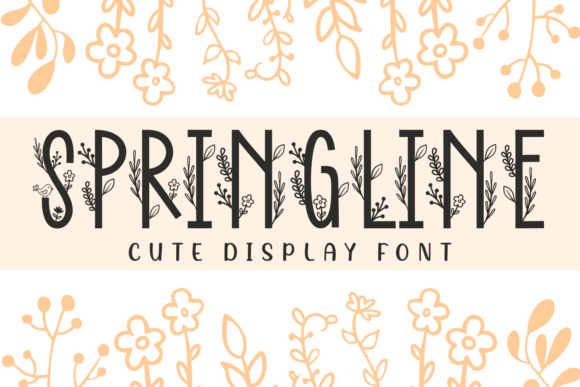
Dive into the enchanting realm of Springline Font, a captivating display font that exudes charm and playfulness. This exquisite creation by Dreamink (7ntypes) is a true masterpiece, meticulously crafted to ignite your imagination and elevate your designs. With its delicate flowers adorning each letter, Springline Font invites you on a whimsical journey, transforming your words into vibrant works of art.
Embrace the allure of Springline Font and let its inherent beauty captivate your audience. Its graceful curves and elegant flourishes evoke a sense of nostalgia, while its contemporary twist adds a touch of modernity. Whether you're crafting heartfelt invitations, enchanting social media posts, or eye-catching branding materials, Springline Font will effortlessly elevate your creations.
Step into a world where every letter blooms with exquisite charm. Springline Font's intricate details and enchanting aesthetic will leave an indelible mark on your designs, captivating your audience with its timeless appeal. Its versatility knows no bounds, seamlessly adapting to a myriad of projects, from whimsical illustrations to captivating logos.
With Springline Font, the possibilities are endless. Unleash your creativity and let your imagination soar. Its user-friendly nature makes it a joy to work with, ensuring a seamless and enjoyable design experience. Join the growing community of creative enthusiasts who have fallen in love with Springline Font's magical touch.
Discover the transformative power of Springline Font today and embark on a creative journey like never before. Let your designs blossom with beauty and grace, leaving a lasting impression on all who encounter them.